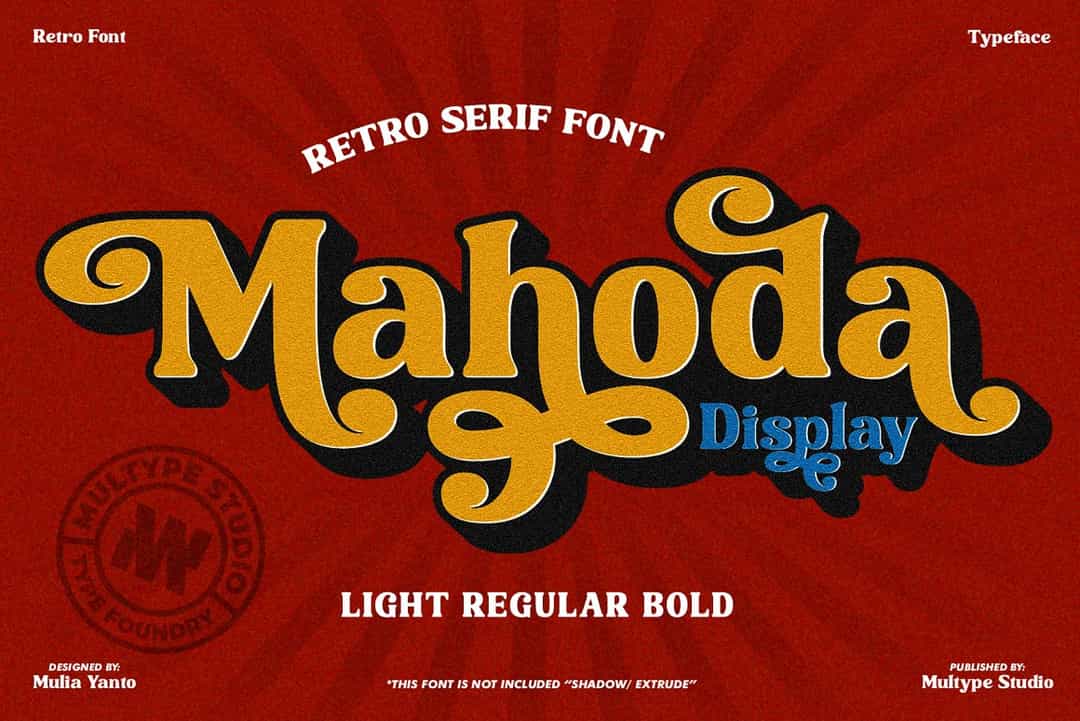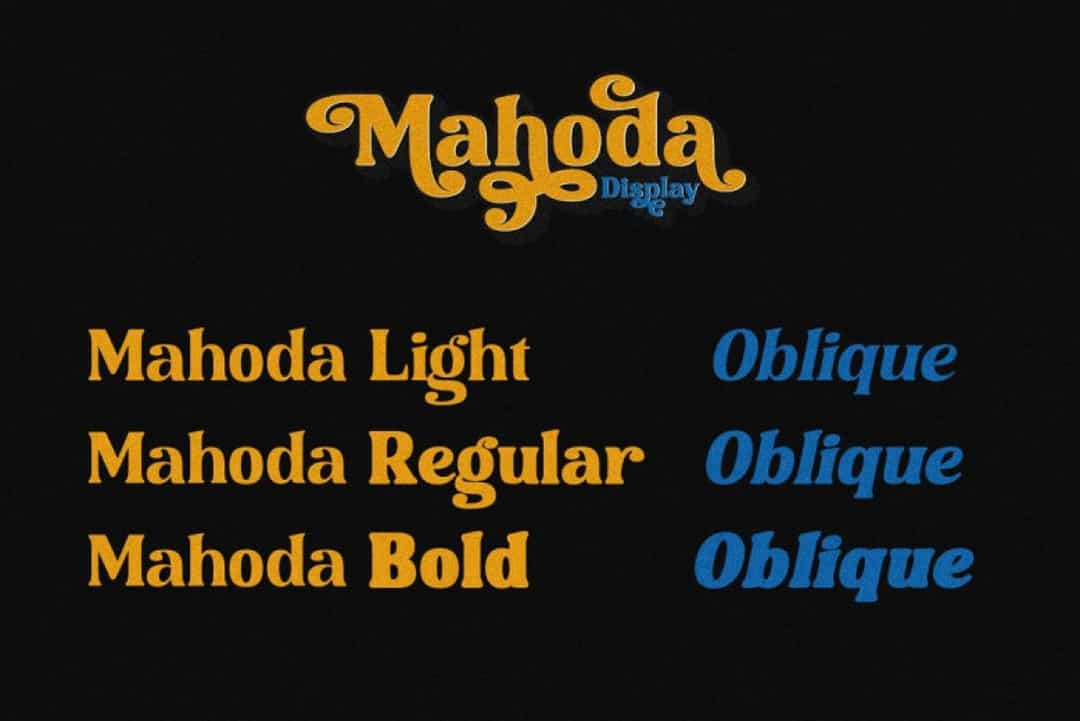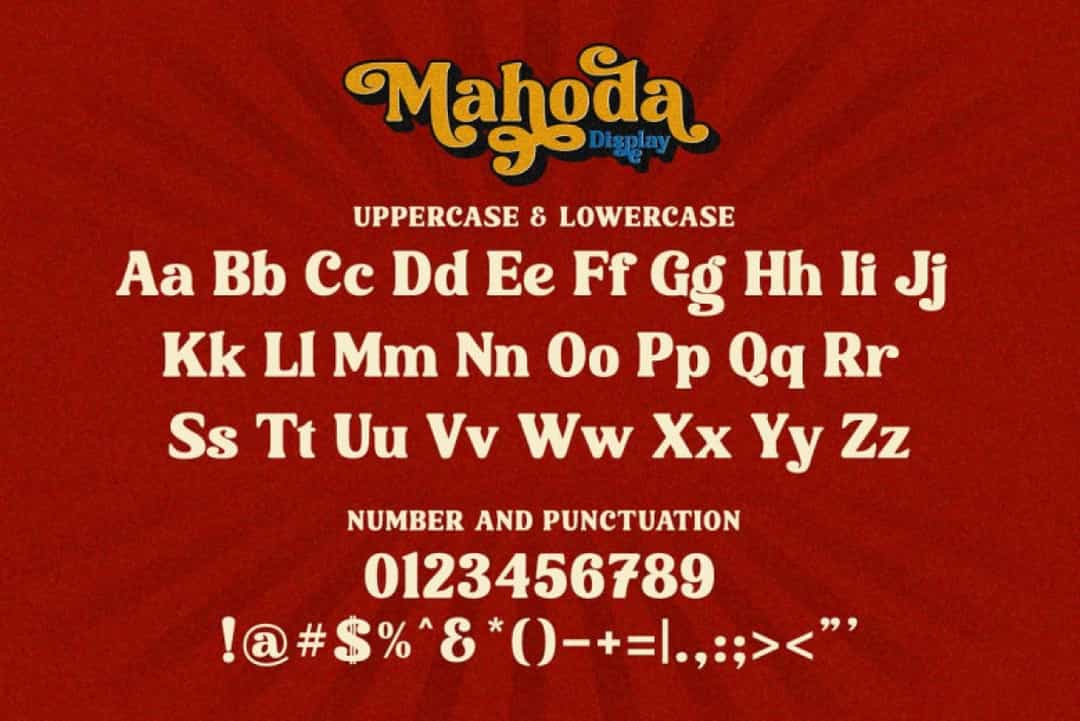
Mahoda Display is a retro-style decorative serif font family. It comes in three weights; Light Regular, Light Bold. OpenType features provide access to alternate characters; this font can be used in logos, branding ads social media packaging ads watermarking invitations stationery posters prints t-shirts etc. This font will certainly turn heads!